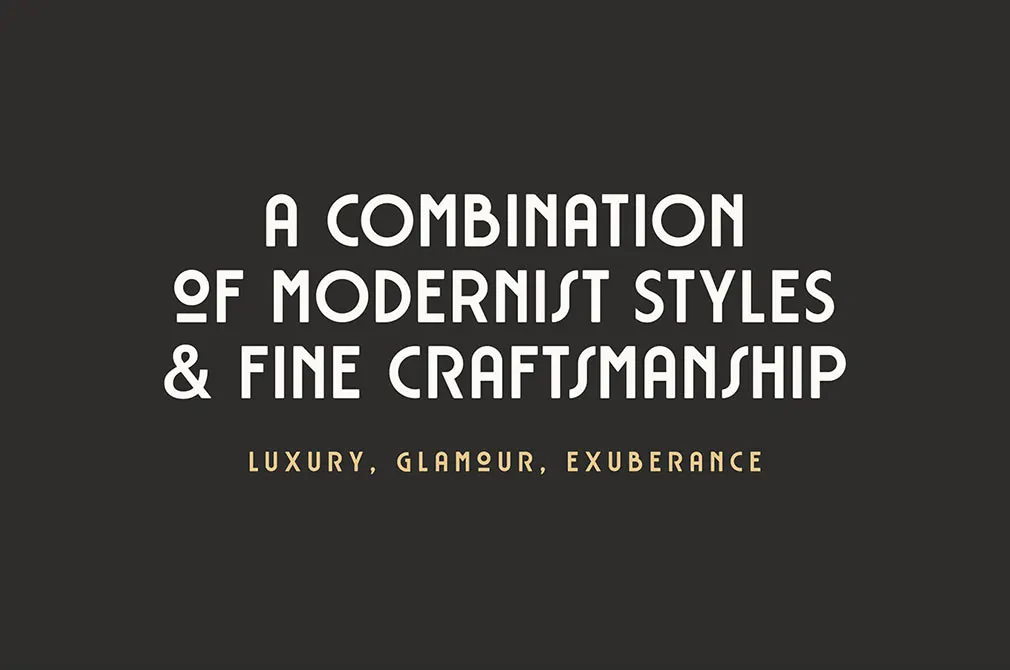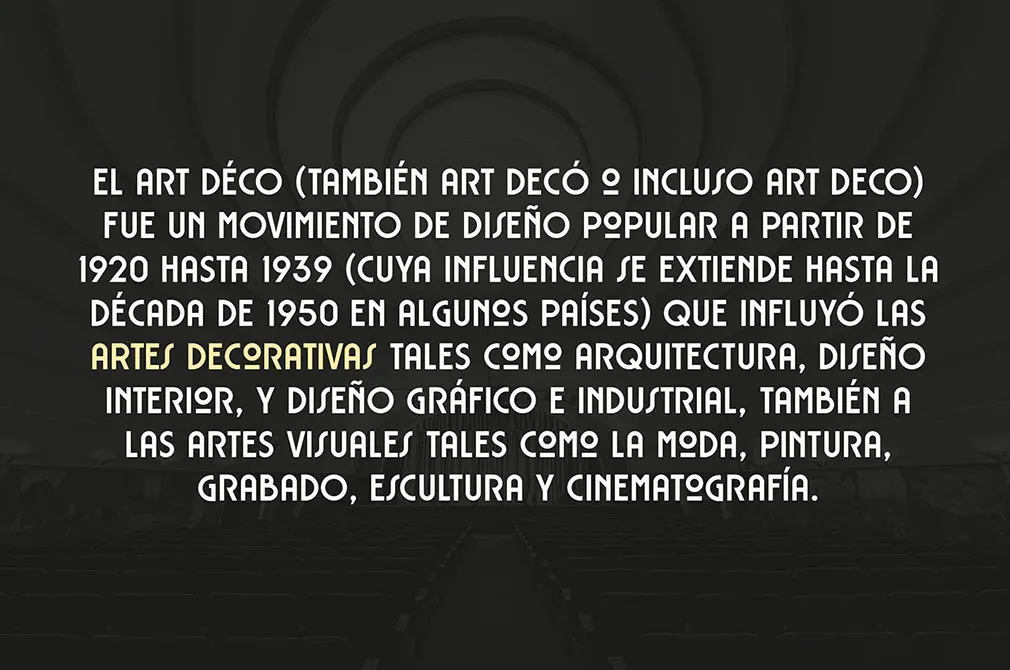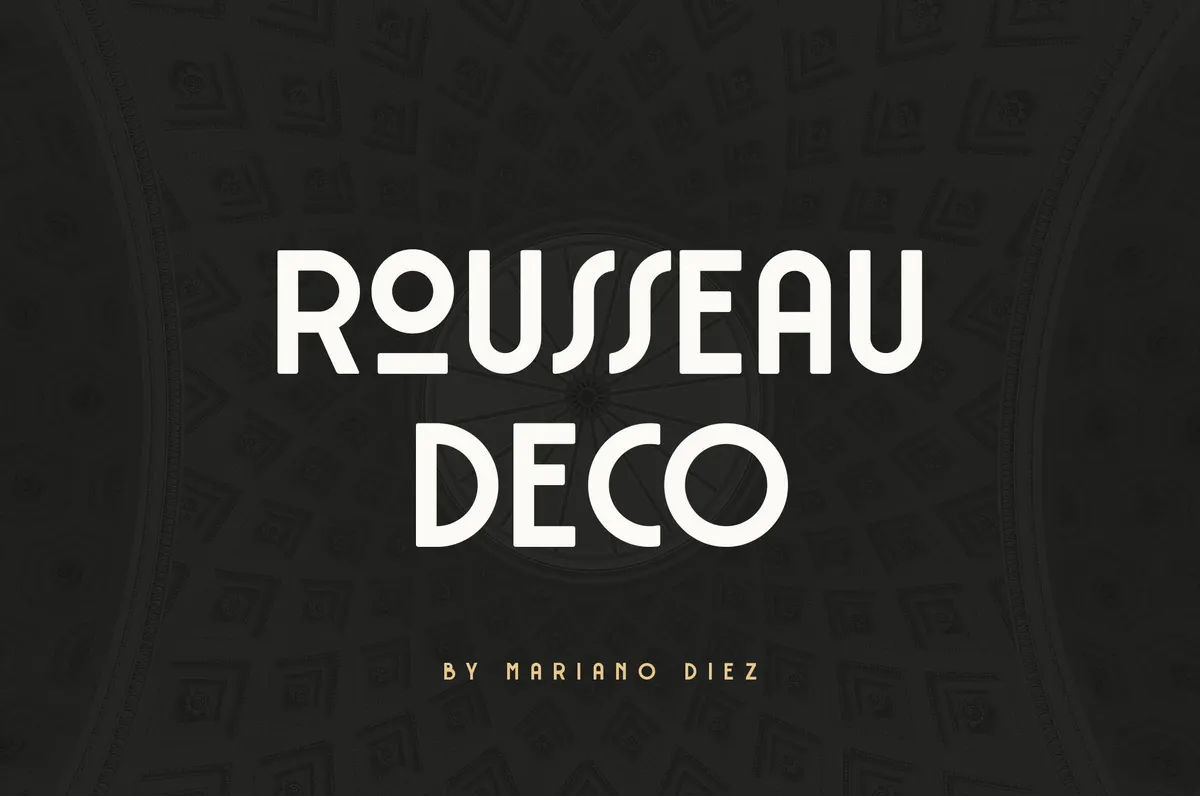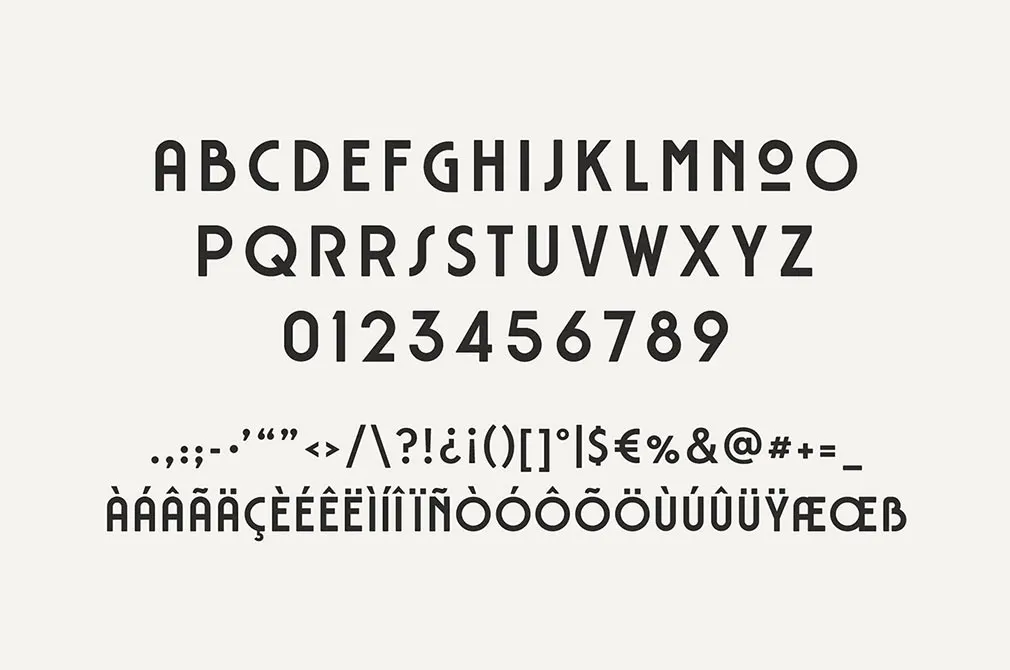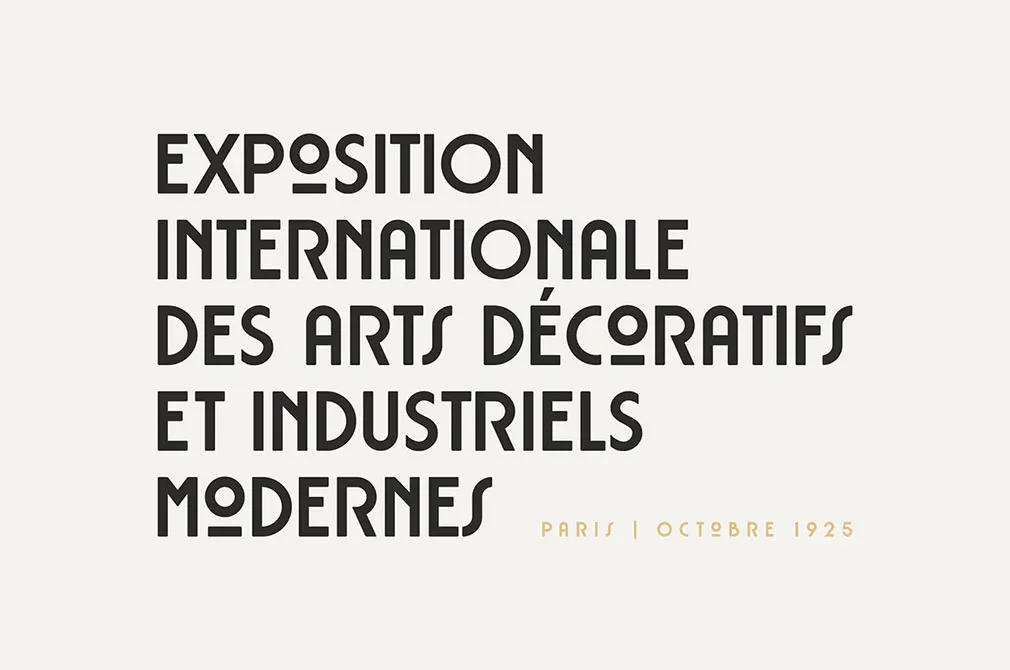
Rousseau Art Deco Font
How many vintage display fonts you have in your collection? We bet not so many of them, but it can be easily fixed. Travel to the roaring twenties with this new retro typeface we share today!
This sans serif font features multilingual characters and also unique stylized O, R & S characters. Create the feeling of good old nostalgia with the Art Deco font, absorbed the rich and sophisticated atmosphere of chick. It can be easily implemented to your logotype designs, website stylization, banners, commercial posters, collage elements and so on. Shine and sparkle!